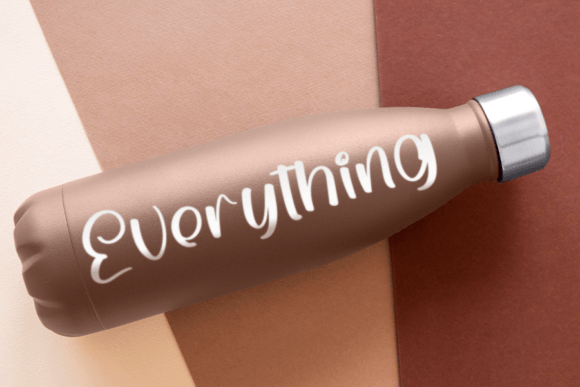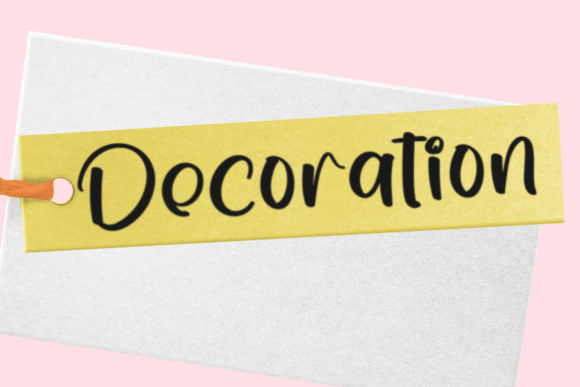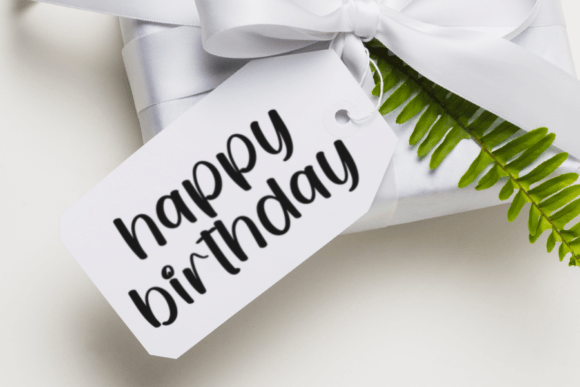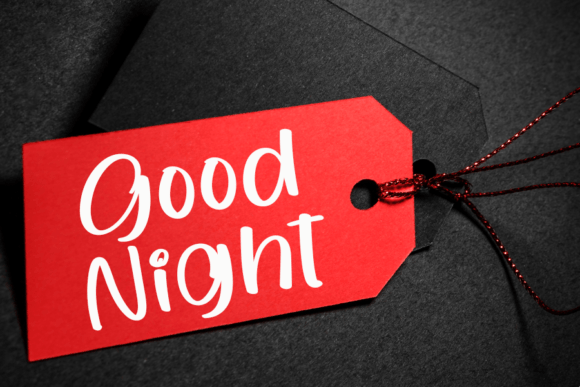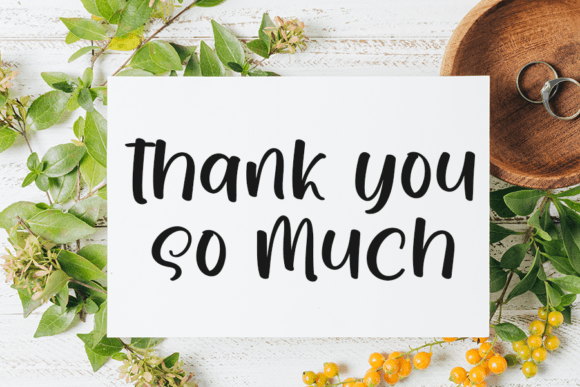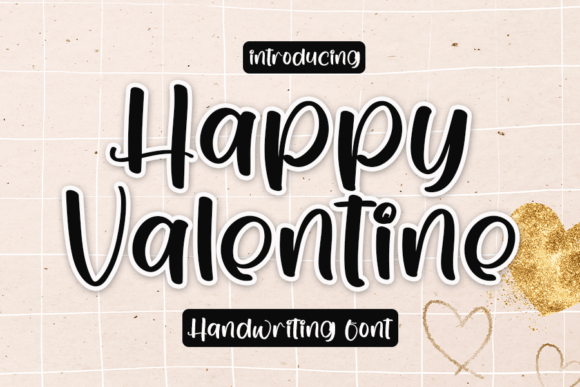
Introducing Happy Valentine Font: The Perfect Choice for Your Design Projects
Are you looking for a beautiful and elegant font to make your design projects stand out? Look no further than Happy Valentine Font! This stunning handwritten font is described by its elegant touch, making it perfect for a wide range of projects. In this article, we’ll explore the features and benefits of Happy Valentine Font, and show you how to use it to create spectacular designs that will leave a lasting impression.
The Unique Style of Happy Valentine Font
Happy Valentine Font is a neat and beautiful handwritten font that exudes an air of elegance and sophistication. Its incredibly distinct and timeless style makes it perfect for designers and crafters who want to add a touch of romance and whimsy to their projects. Whether you’re creating Valentine’s Day cards, wedding invitations, or simply want to add a personal touch to your digital designs, Happy Valentine Font is the perfect choice.
Key Features of Happy Valentine Font
- Elegant and Refined Design: Happy Valentine Font features a beautiful, handwritten design that is both elegant and refined.
- Timeless Style: The font’s classic style ensures that it will remain a popular choice for years to come.
- Highly Versatile: Happy Valentine Font can be used for a wide range of projects, from digital designs to print materials.
- Easy to Read: The font is clear and easy to read, making it perfect for body text and headlines.
Using Happy Valentine Font in Your Design Projects
Happy Valentine Font is incredibly easy to use and can be incorporated into a wide range of design projects. Here are a few ideas to get you started:
- Valentine’s Day Cards and Invitations: Create beautiful and romantic Valentine’s Day cards and invitations using Happy Valentine Font.
- Wedding Designs: Use Happy Valentine Font to create stunning wedding invitations, programs, and other wedding materials.
- Digital Designs: Add a personal touch to your digital designs, such as social media graphics, blog posts, and email newsletters.
- Crafting Projects: Use Happy Valentine Font to create beautiful and unique crafting projects, such as handmade cards and gift tags.
Tips and Tricks for Using Happy Valentine Font
Here are a few tips and tricks to help you get the most out of Happy Valentine Font:
- Experiment with Different Sizes and Colors: Try out different sizes and colors to see what works best for your project.
- Pair with Other Fonts: Happy Valentine Font pairs well with other fonts, so don’t be afraid to experiment with different combinations.
- Use for Headlines and Body Text: Happy Valentine Font is clear and easy to read, making it perfect for both headlines and body text.
In conclusion, Happy Valentine Font is a beautiful and elegant handwritten font that is perfect for a wide range of design projects. Its incredibly distinct and timeless style makes it a popular choice for designers and crafters who want to add a touch of romance and whimsy to their projects. With its highly versatile design and ease of use, Happy Valentine Font is sure to become a favorite in your design arsenal.